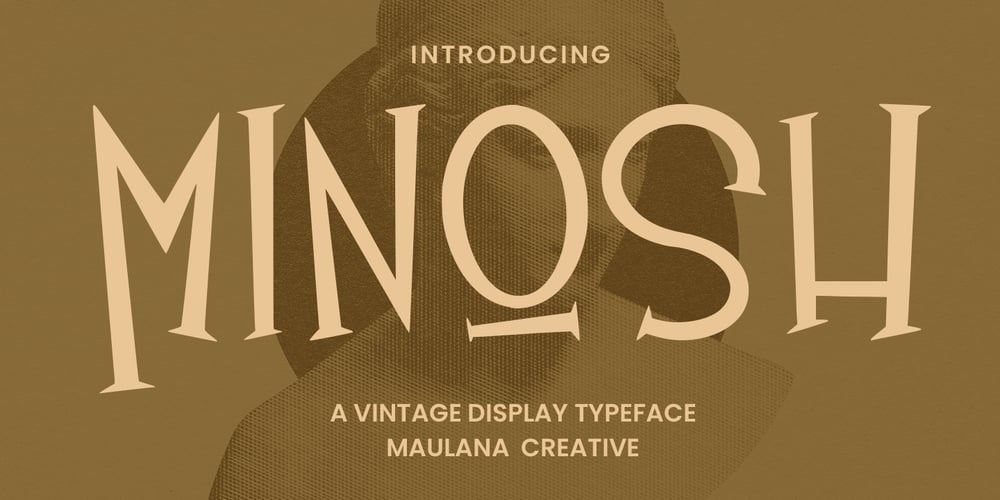
MC Minosh Font Family was designed by Gilang Maulana and published by Maulana Creative. MC Minosh contains 1 styles and family package options. Minosh is a vintage display typeface. With three weight stroke, fun character with a bit of ligatures. To give you an extra creative work. Minosh vintage display typeface support multilingual more than 100+ language. This font is good for logo design, Social media, Movie Titles, Books Titles, a short text even a long text letter and good for your secondary text font with sans or serif. Make a stunning work with Minosh vintage display typeface. Cheers, Maulana Creative